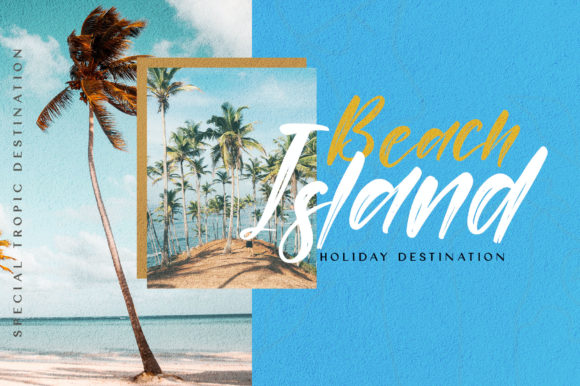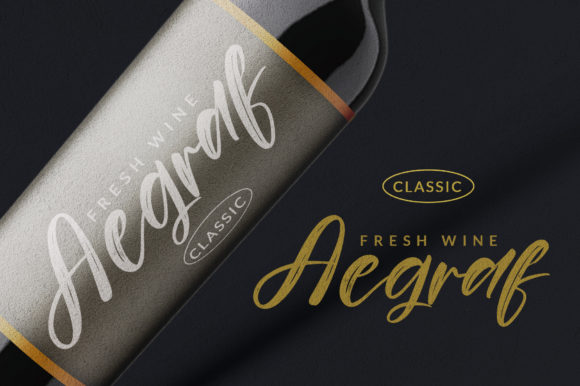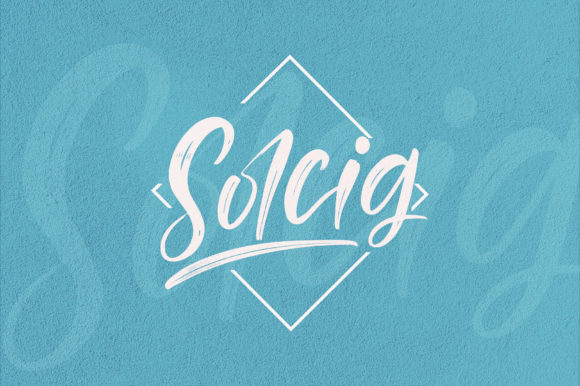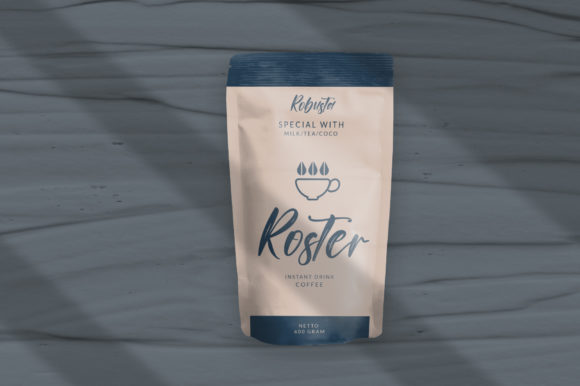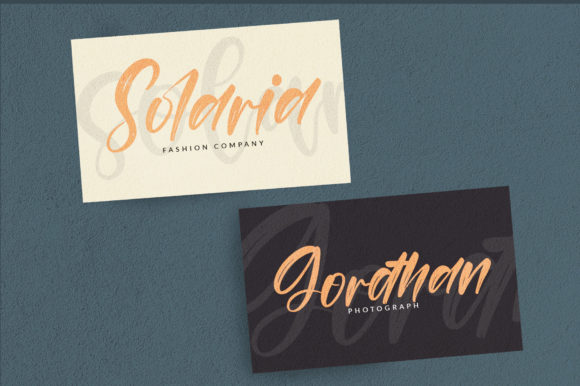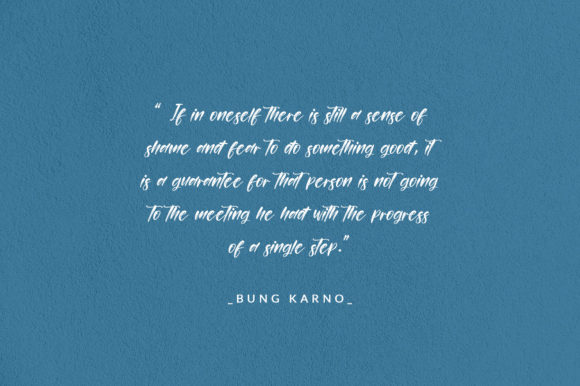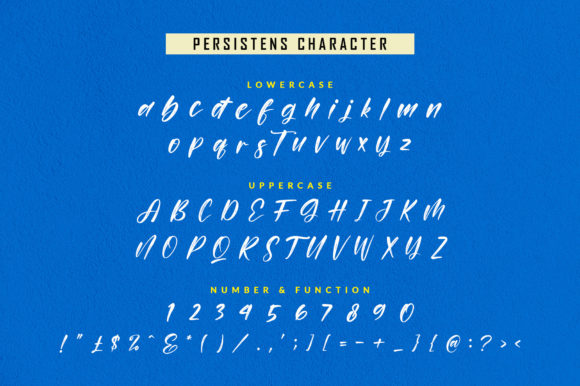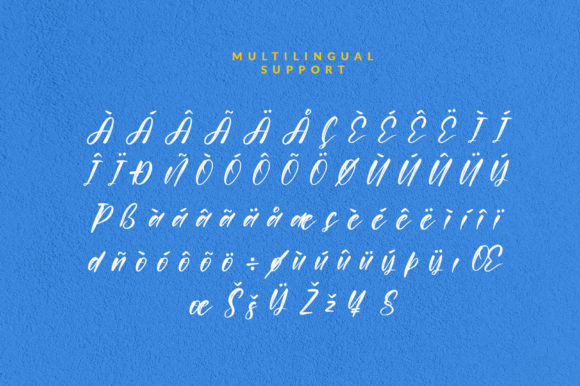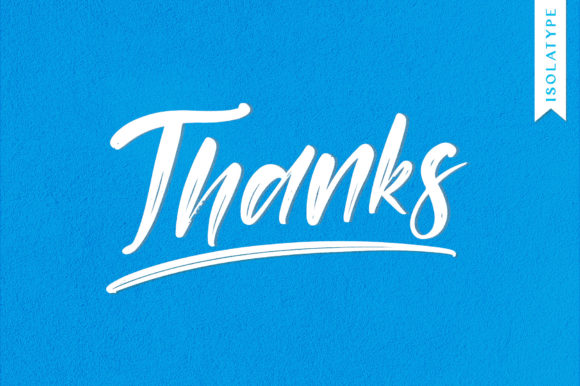
Persitent Font
About Persitent Font
Persitent is a stylish handwritten font. It will add a luxury spark to any design project that you wish to create! This font is PUA encoded which means you can access all of the amazing glyphs and ligatures with ease!